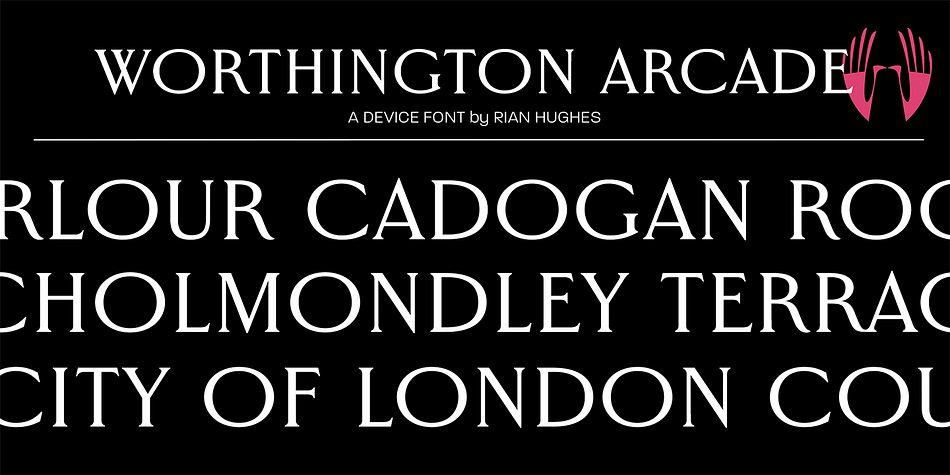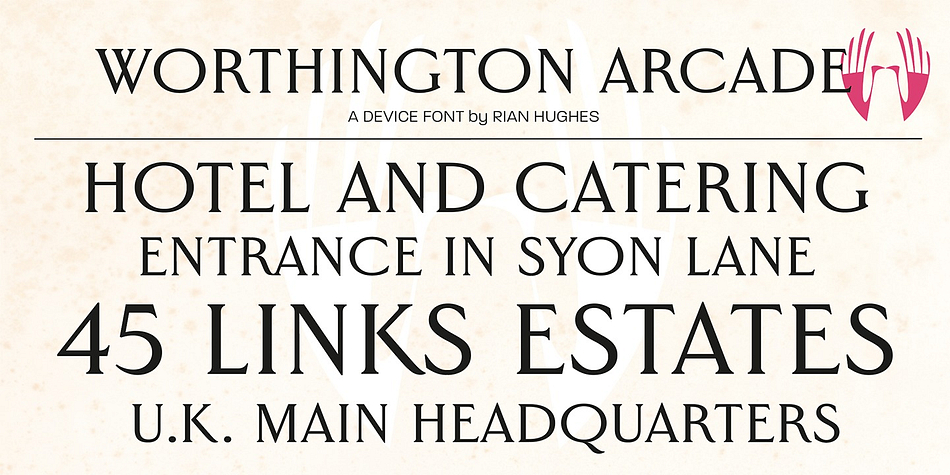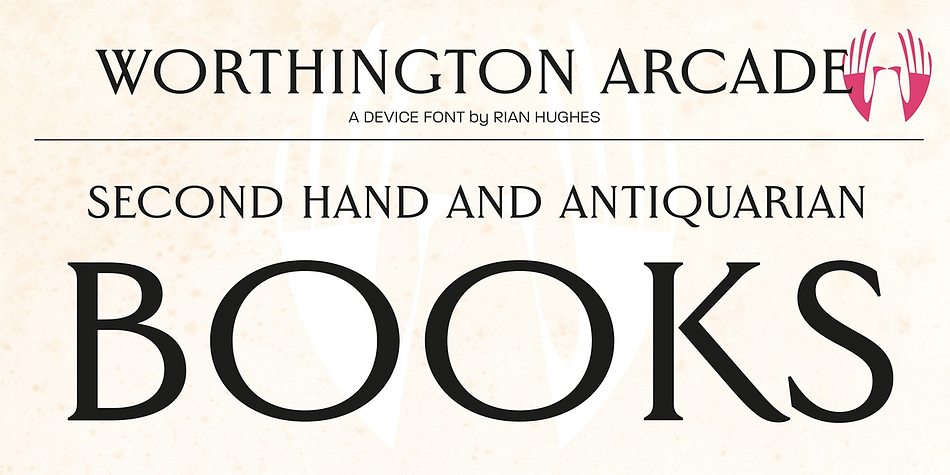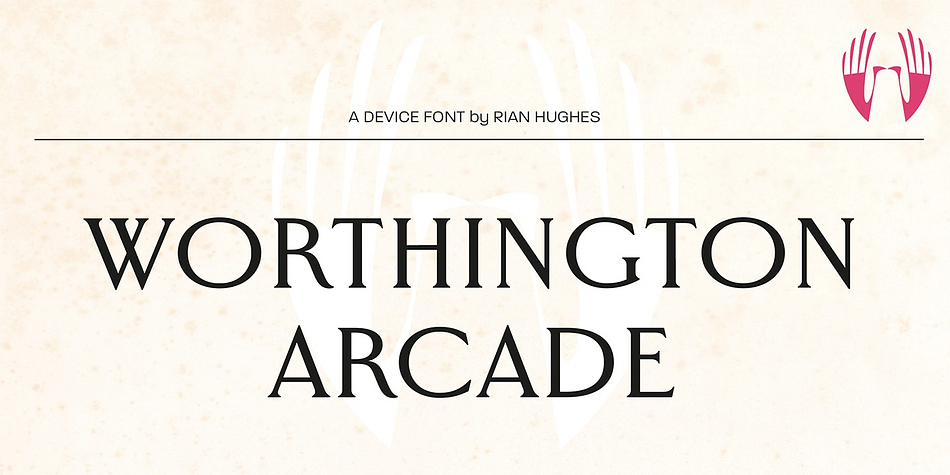
Designed by Rian Hughes, Worthington Arcade is a display serif font published by Device.
Worthington Arcade is a classically-proportioned capitals-only type incorporating a selection of ligatures and alternates.
It loosely resembles the hand-painted architectural lettering of the 30s to the 50s, exemplified by the likes of Percy Smith’s interior signage for the BBC or George Mansell’s lettering for the University of London and the signs found on London’s bridges. However, rather than a slavish copy of any historical model, it is more an examination and evocation of certain idiosyncratic quirks of civic lettering of the period, and an attempt to create a peculiarly English titling typeface.
The round letters, for example the O, Q and C, are wider than the perfect circle usually found in such designs, while the straight-sided characters, usually drawn on a square, are narrower. This lends the whole a subtle elegance that is also emphasized by the raised crossbars on the H, E and F and extended lower leg of the E.
Includes old-style numerals.